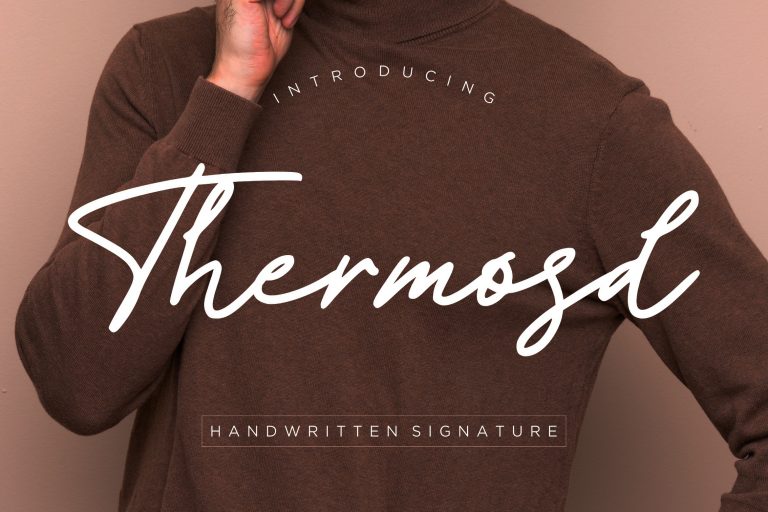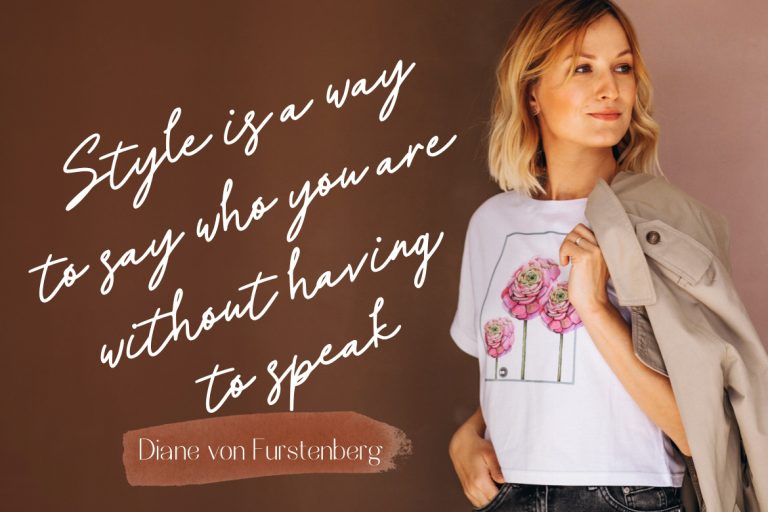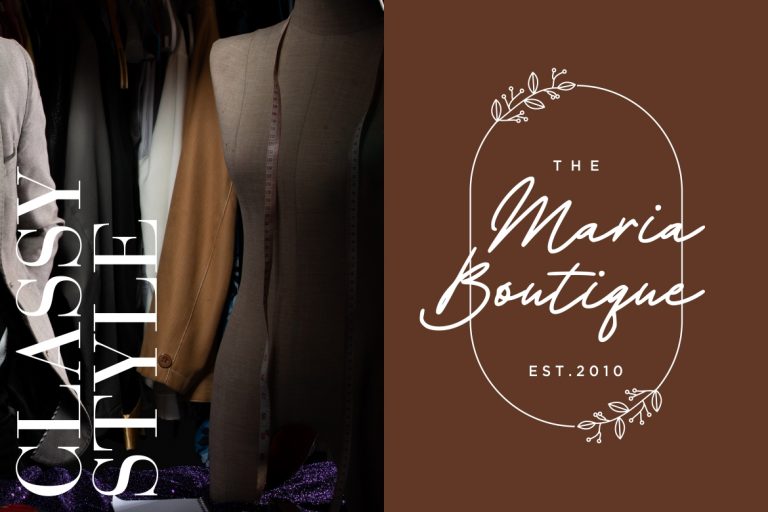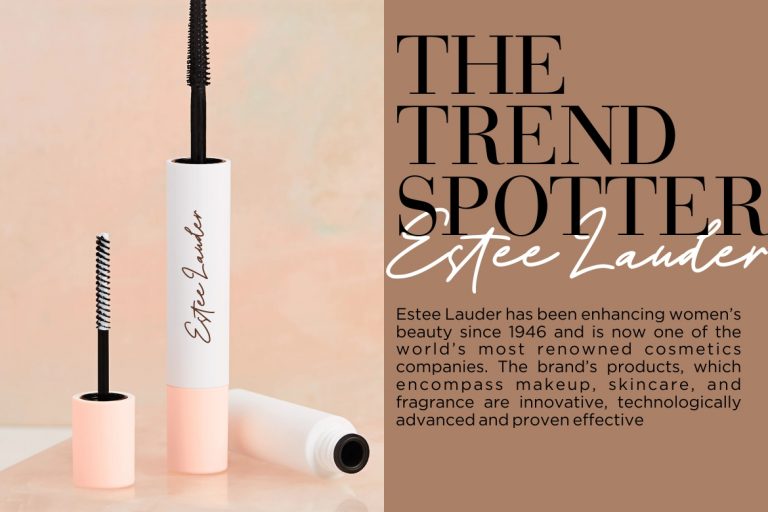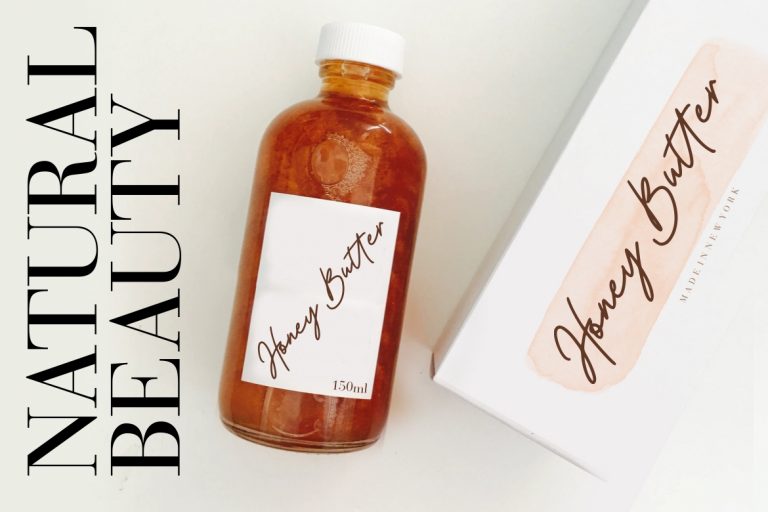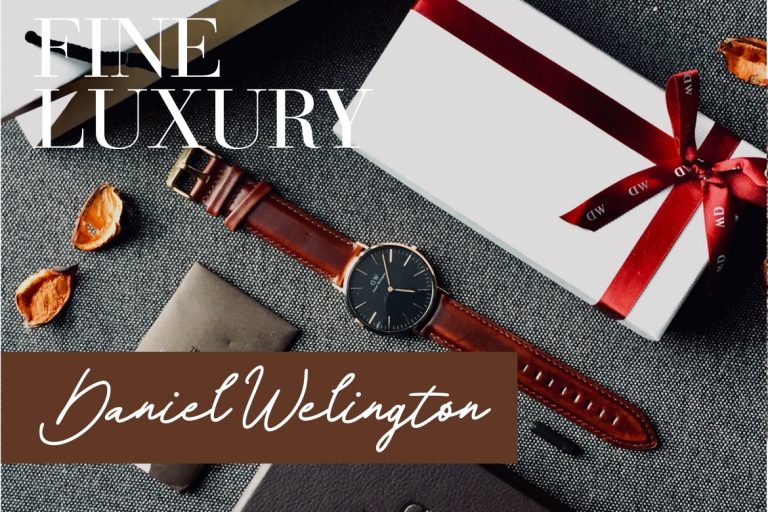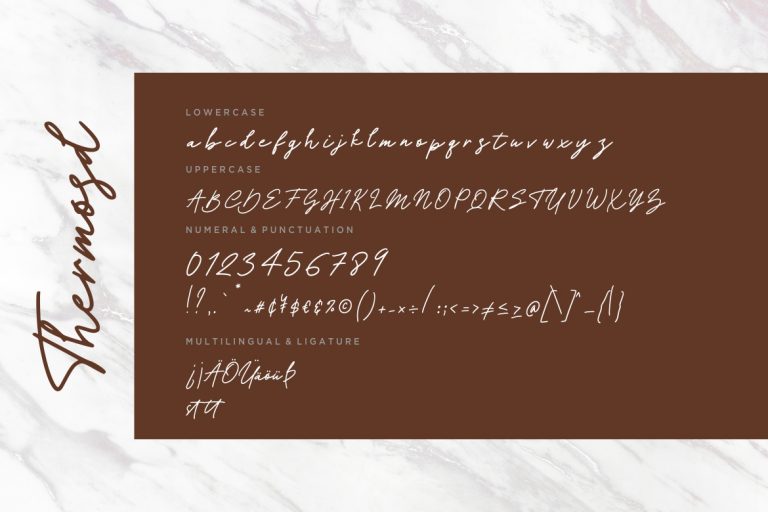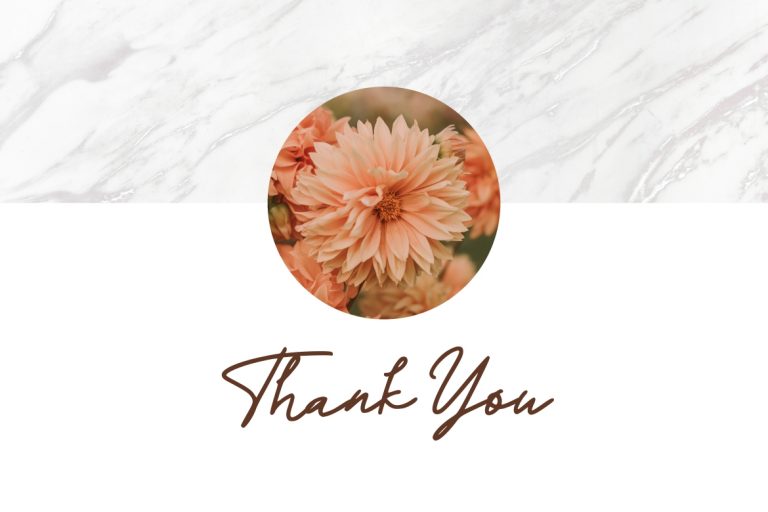
Thermosd is signature handwritten font with sophisticated and stylish handwritten.
Thermosd is perfect for branding projects, logo, wedding designs, social media posts, advertisements, product packaging, product designs, label, photography, watermark, invitation, stationery and any projects that need handwriting taste.
• Fonts include multilingual support for; ä ö ü Ä Ö Ü ß ¿ ¡
Thermosd Handwritten Signature